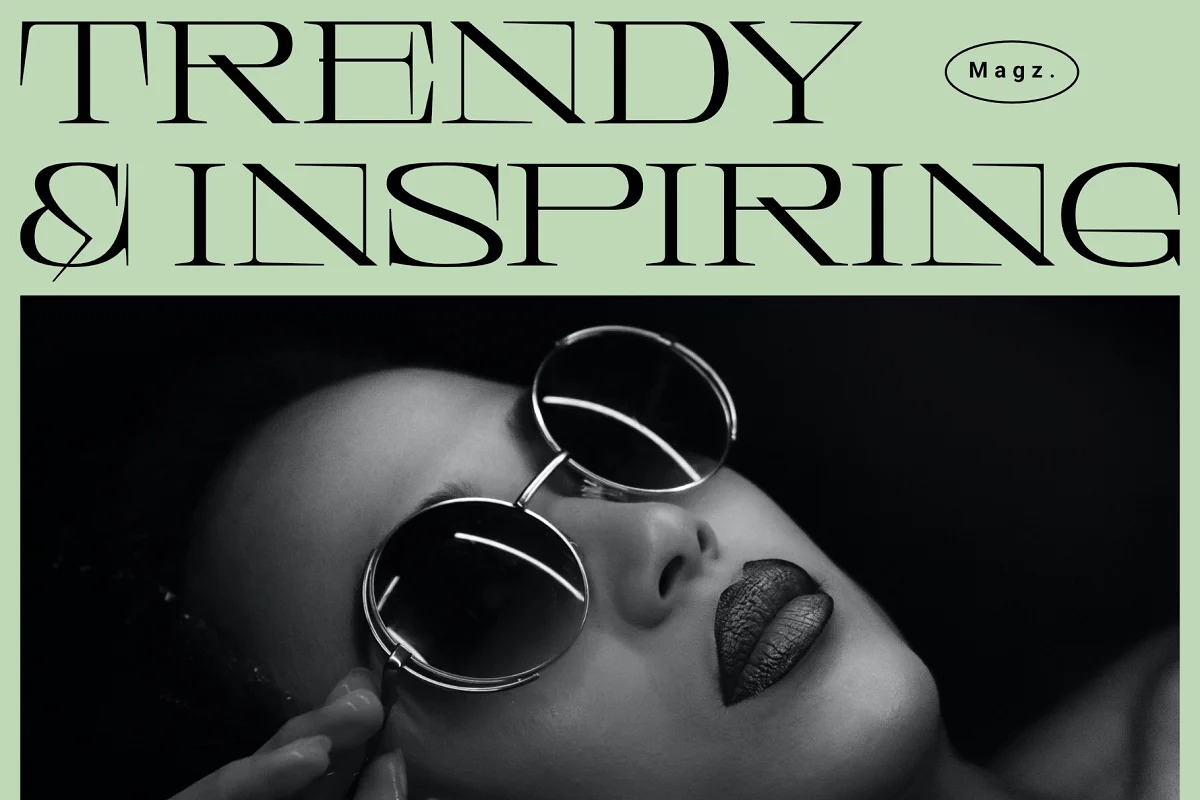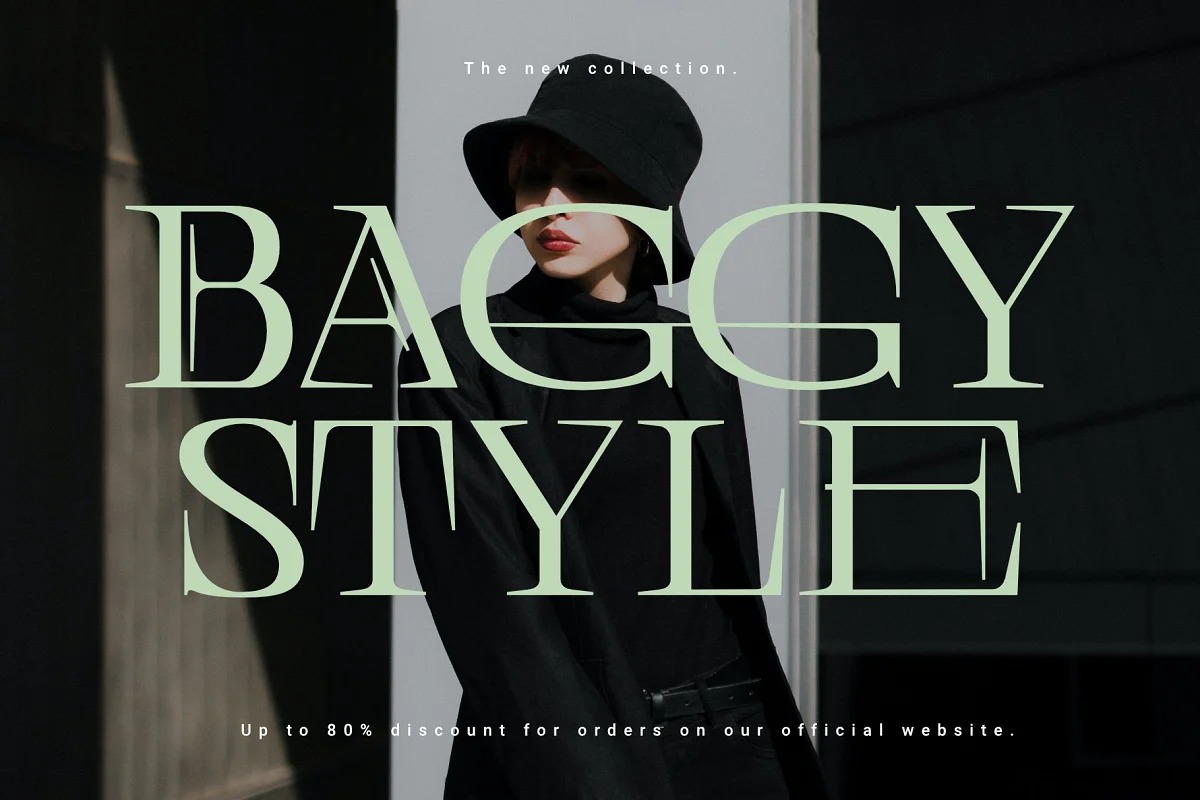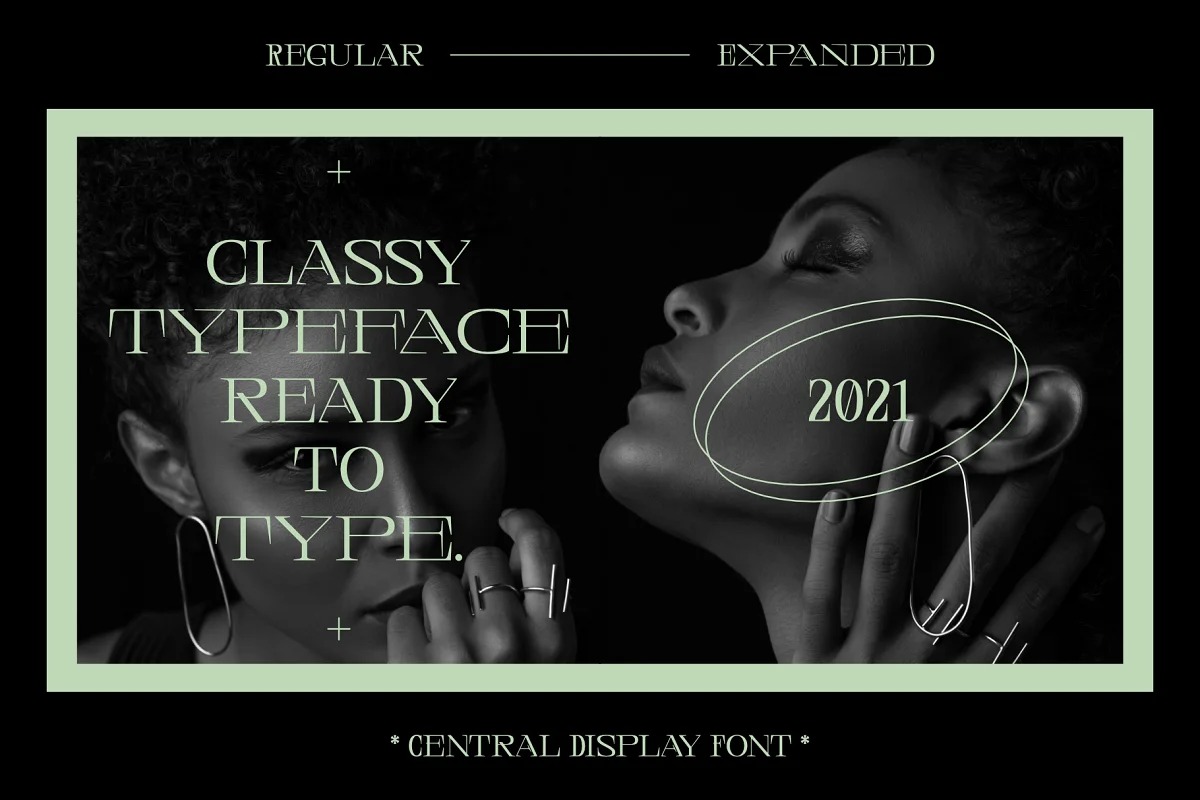
Central Serif Font
It’s a modern and elegant display serif fonts that had a sleek and luxury feel. This typeface is inspired by fashion magazines. Strong and classy character. For the main display is very suitable. For example in poster design, branding, social media posts, magazine covers and so on.